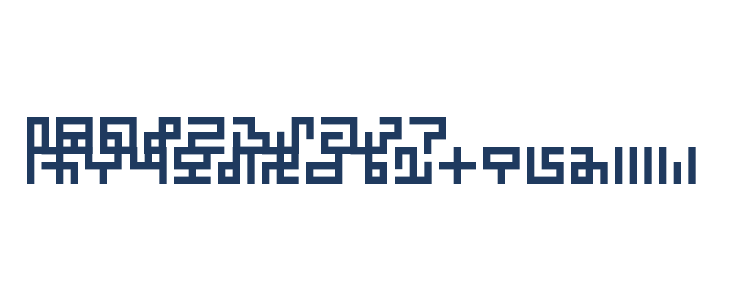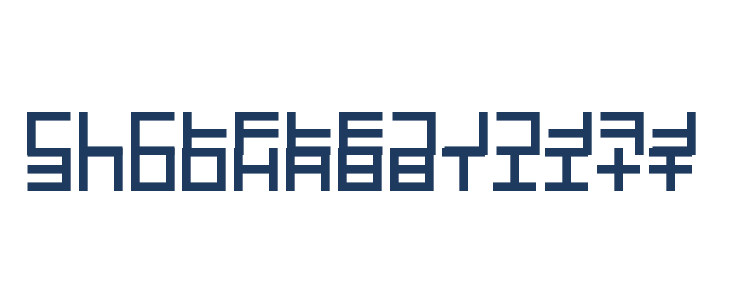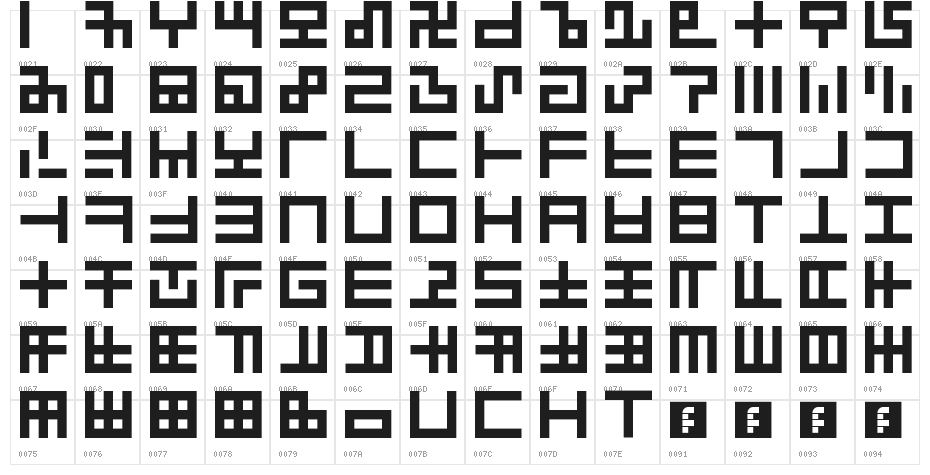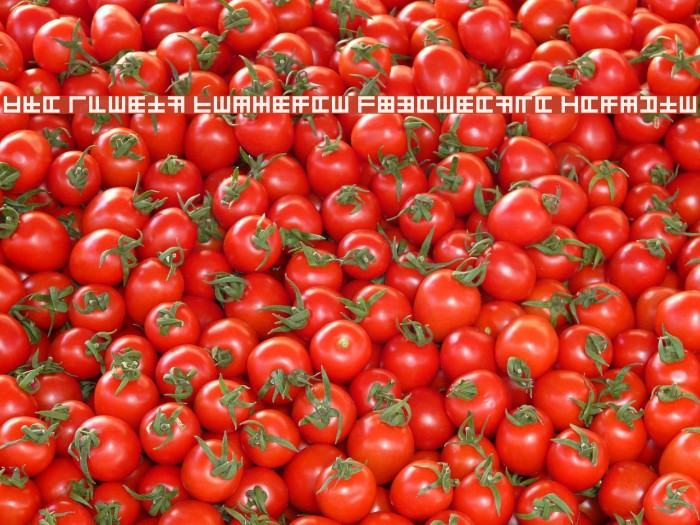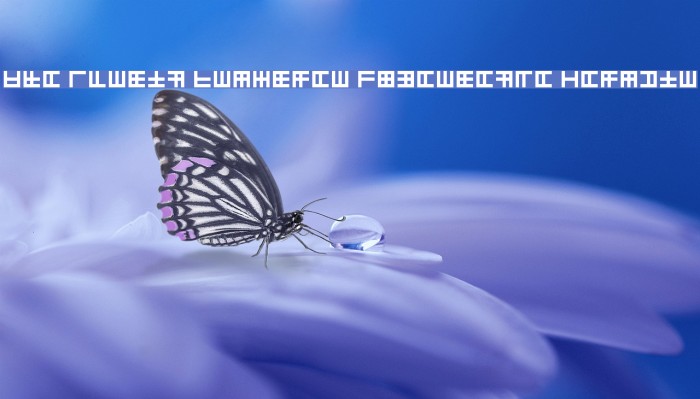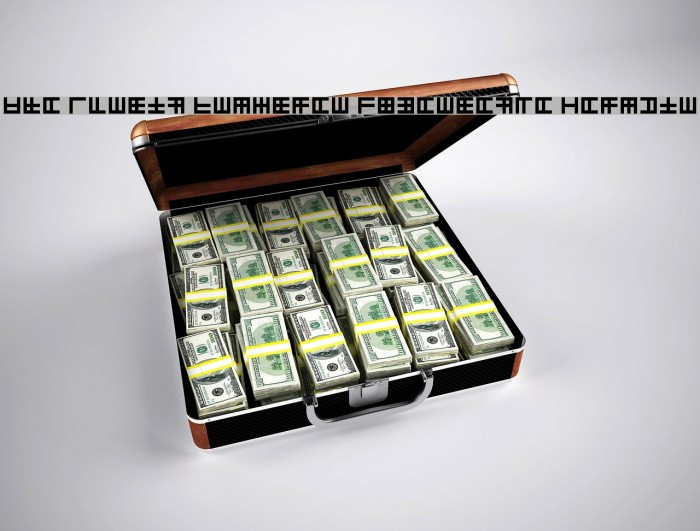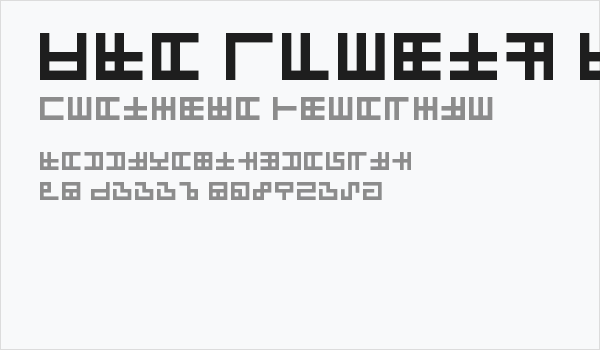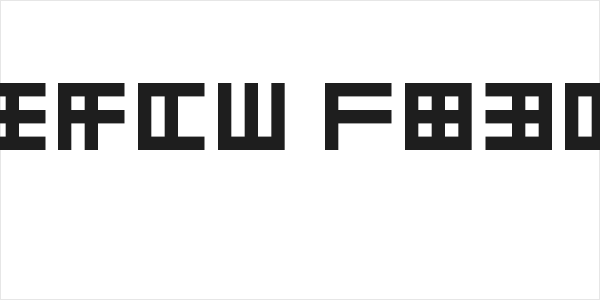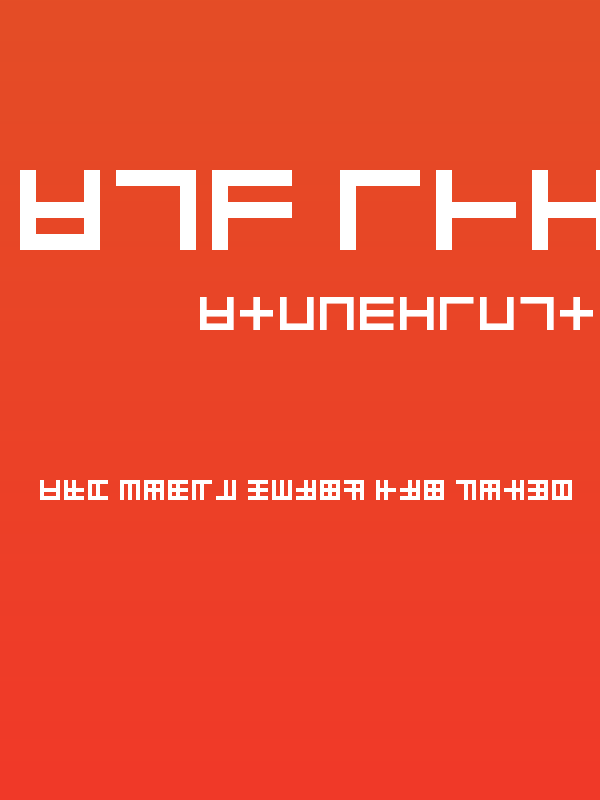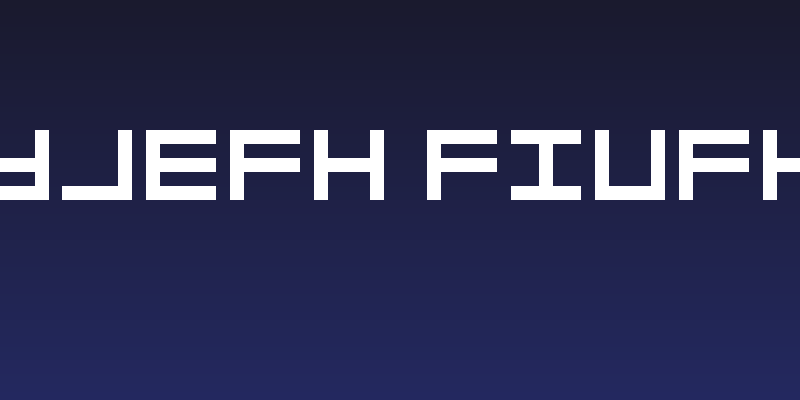
The Adrian Frutiger Experience Regular Font
The Adrian Frutiger Experience Regular Description
This font features a geometric and futuristic design with a blocky and angular appearance. Each character is constructed with straight lines and sharp angles, giving it a digital and modern feel. The uniformity in stroke width across all characters contributes to a cohesive and structured look. The font's unique style is reminiscent of early digital displays or pixel art, making it stand out with its bold and striking presence. The characters are evenly spaced, ensuring readability while maintaining a compact and efficient layout. This font is ideal for projects that require a modern and tech-inspired aesthetic.
| Use Case | Logos, Headlines, Digital displays |
| Proposed Projects | Ideal for tech branding, video game graphics, digital art, and futuristic-themed posters. |